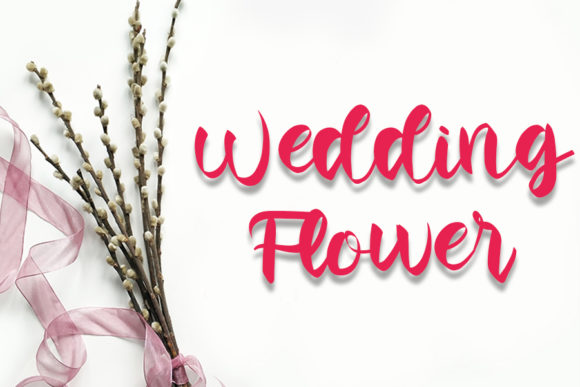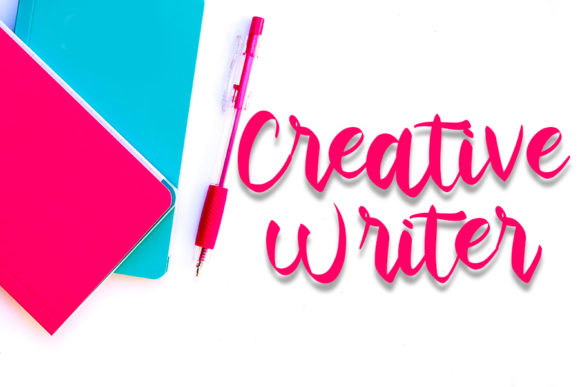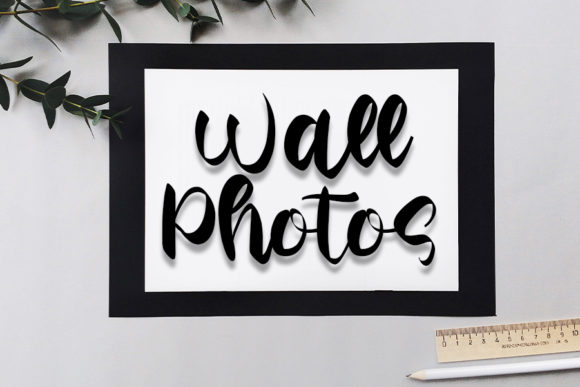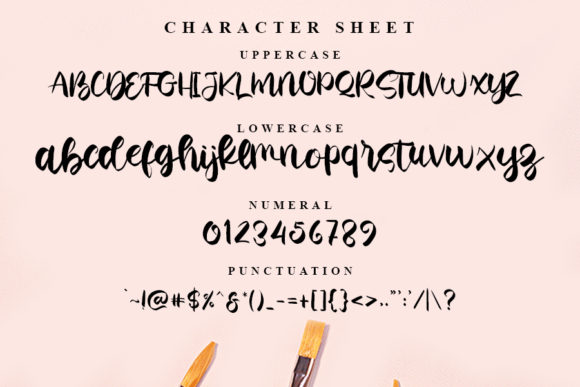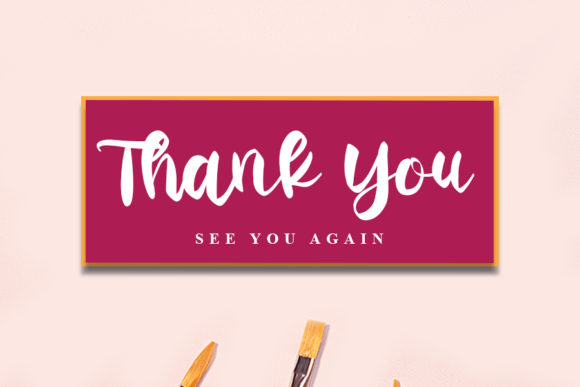
Introduction to Happy Lantina Font
Do you remember that moment when you’re brainstorming ideas for your next creative project and you stumble upon the perfect font that instantly brings your design to life? For designers, finding the right font can be a game-changer. It’s like discovering a hidden gem that elevates your entire project and leaves a lasting impression on your audience.
One such gem is the Happy Lantina Font, a simple yet friendly handwritten font that’s perfect for informal or festive designs. Its casual and attractive style makes it an ideal choice for designers looking for a high-quality design resource that adds a personal touch to their projects.
Key Features of Happy Lantina Font
- High-quality, hand-drawn design resource ideal for creative projects
- Designed with a unique, playful feel that adds a touch of whimsy to any project
- Perfect for digital and print projects, including logos, branding materials, and editorial content
Honest Review: Happy Lantina Font
As a designer, I’m always on the lookout for high-quality design resources that can elevate my creative projects. The Happy Lantina Font is a font that caught my attention, and I’m excited to share my honest review with you.
- Cute and playful aesthetic that’s perfect for children’s books, magazines, or any other project that requires a lighthearted tone.
- High-quality font that’s clear and easy to read, even at smaller font sizes.
- May not be suitable for more formal or professional projects, due to its playful nature.
- Limited font weights and styles, which may limit its versatility in certain designs.
Overall, I’m impressed with the Happy Lantina Font, and I think it’s a great addition to any designer’s toolkit. While it may have some limitations, its cute and playful aesthetic makes it perfect for creative projects that require a lighthearted tone. Give it a try and see how it can enhance your designs!
Tips for Getting the Most Out of Happy Lantina Font
For the best results, use the Happy Lantina Font in conjunction with other design elements to create a cohesive look. Experiment with different font sizes and colors to add depth and visual interest to your design. Additionally, consider using the font in combination with other design resources to create a unique and creative project.
The Happy Lantina Font is perfect for a variety of creative projects, including branding, marketing materials, and editorial designs. Its unique design and high quality make it an excellent choice for designers looking to add a touch of elegance and sophistication to their work.